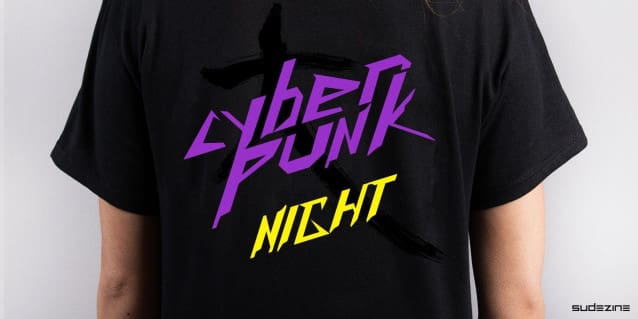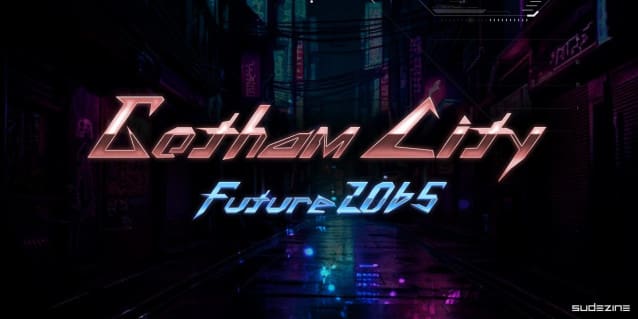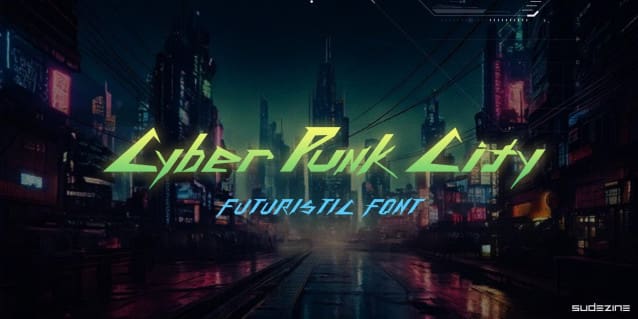
SD Cyber Punk City Font
SD Cyber Punk City Font: This font is designed to evoke a digital, high-tech aesthetic associated with the cyberpunk genre. you can use logos, Game, quotes, invitations, greeting cards, journals, posters, clothing, and more